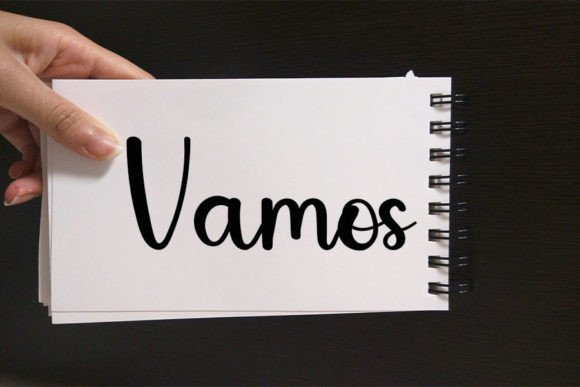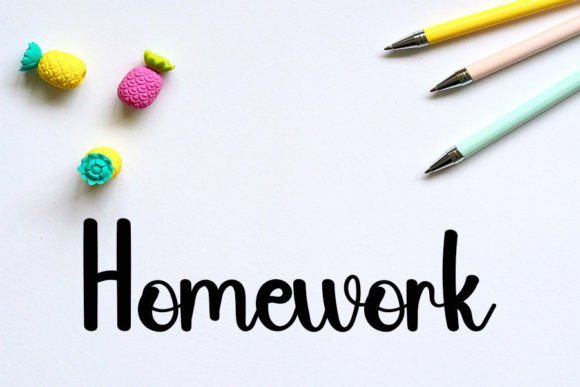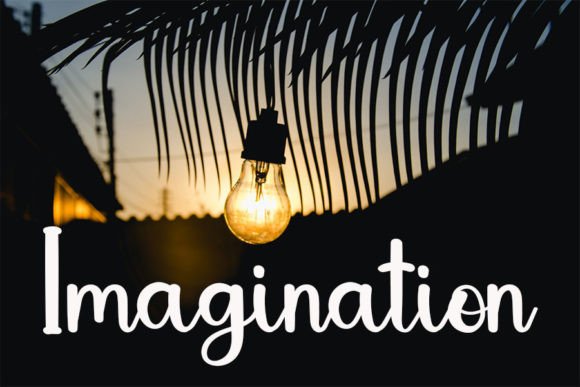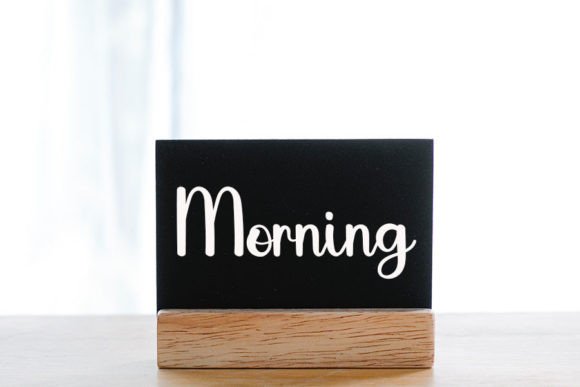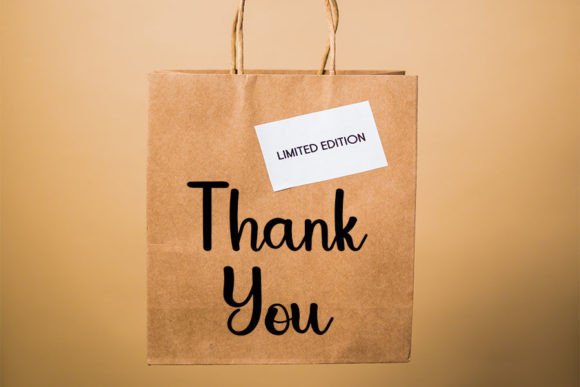
Black Signature
About Black Signature
Black Signature is a magical handwritten font carefully created with a touch of elegance. Clean and a little bit quirky, this font is the perfect fit for all of your logos, branding, social media, and crafty DIY projects.